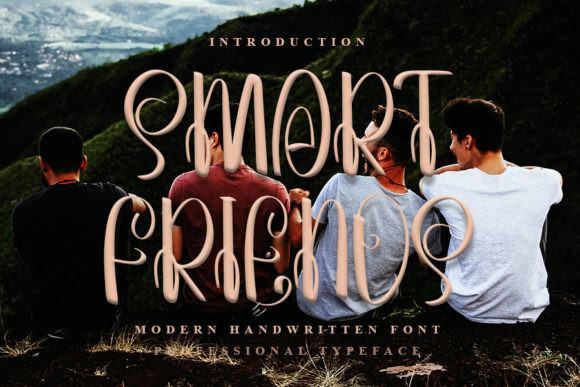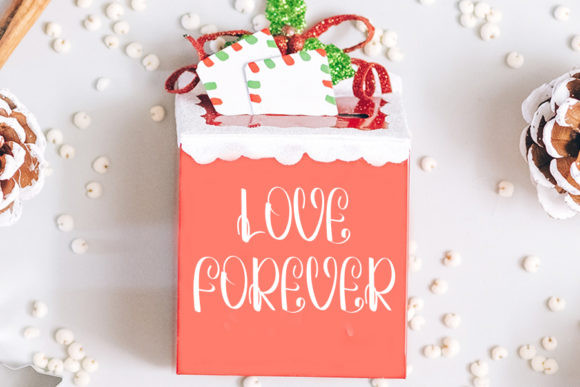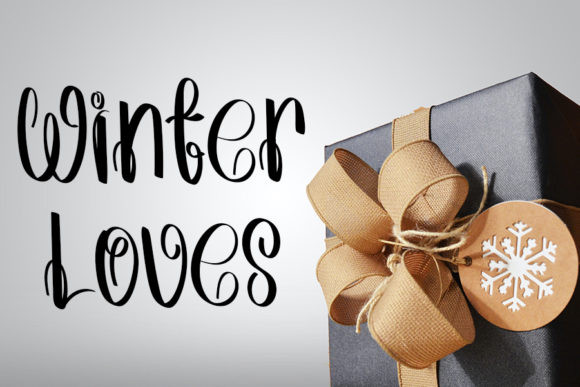
Smart Friends Font
Smart Friends is a whimsical and unique handwritten font, that can easily stand out. Simple but with a strong visual effect, this font will instantly make your creation more appealing than any others.